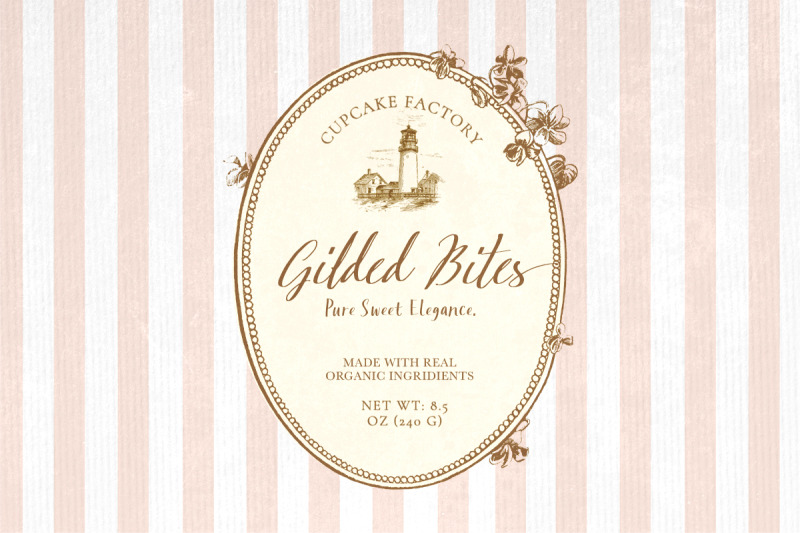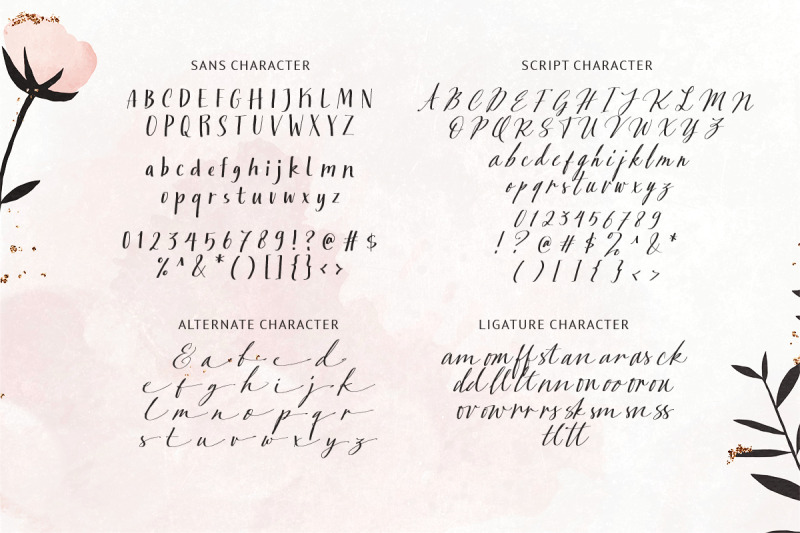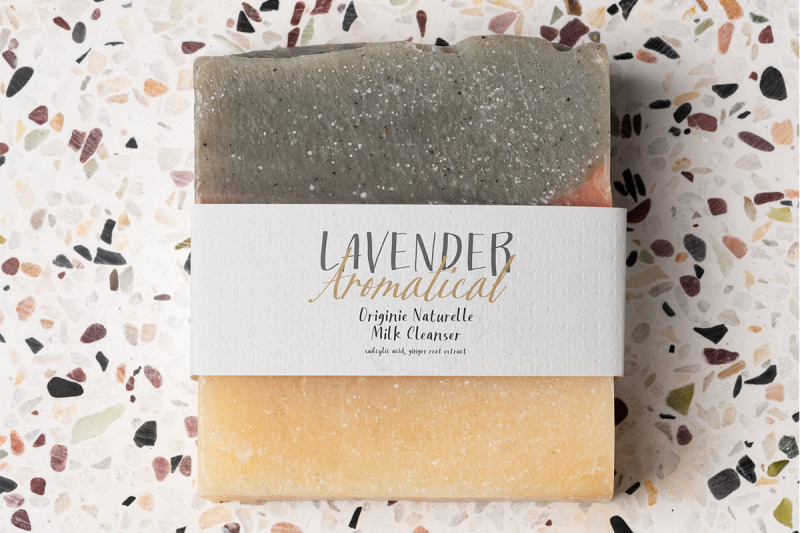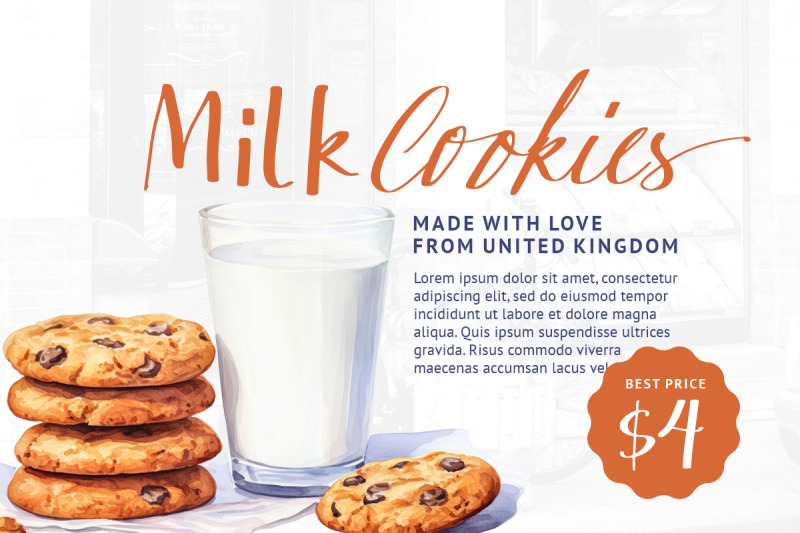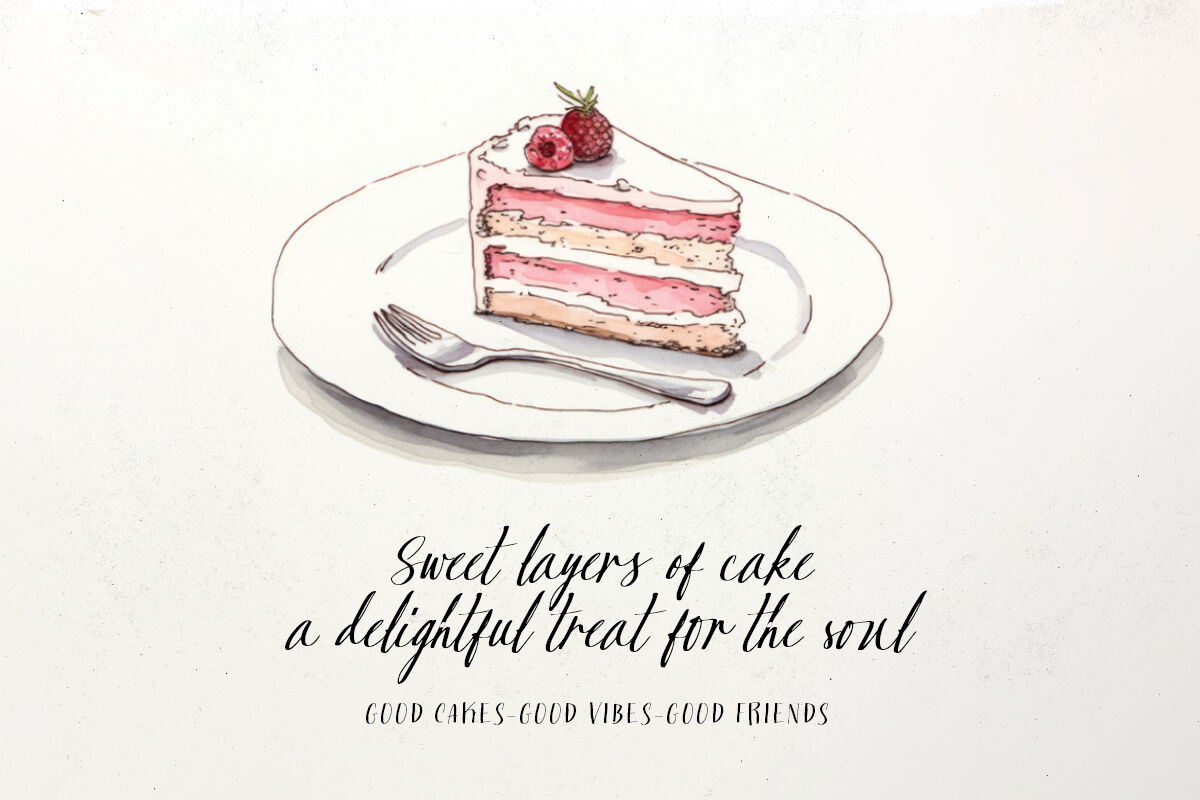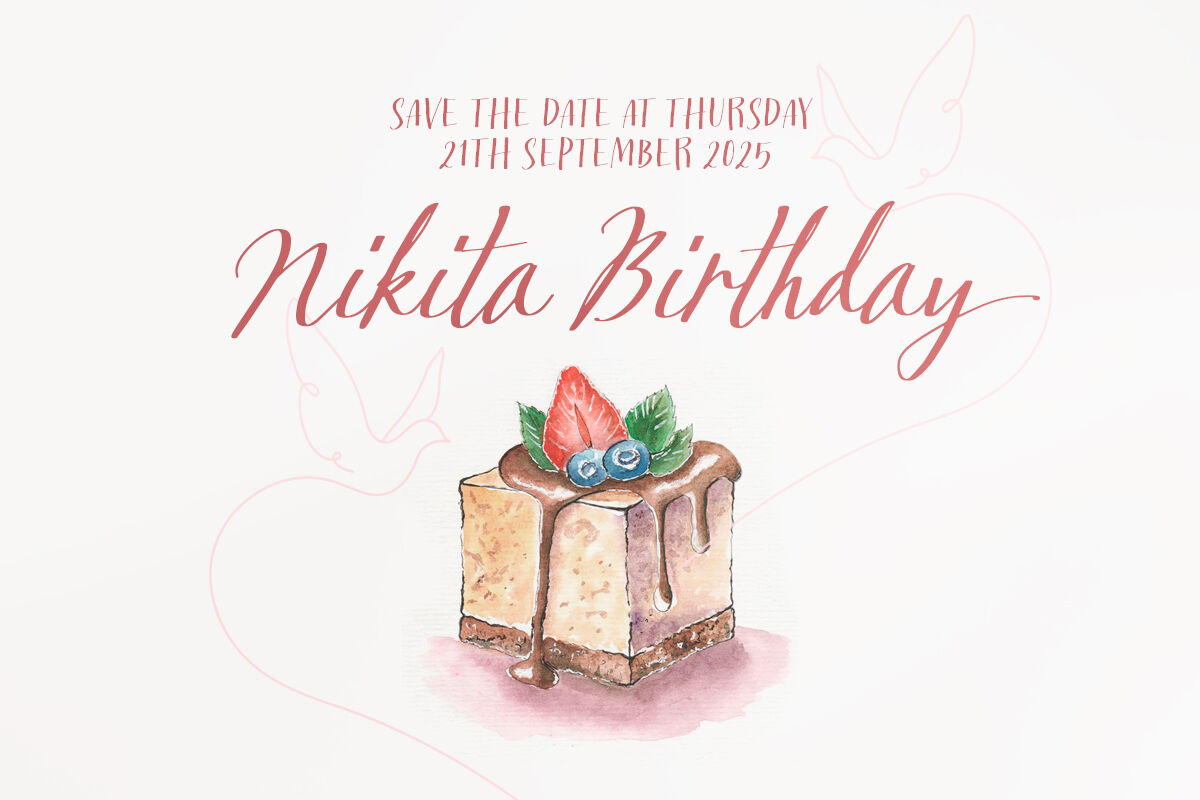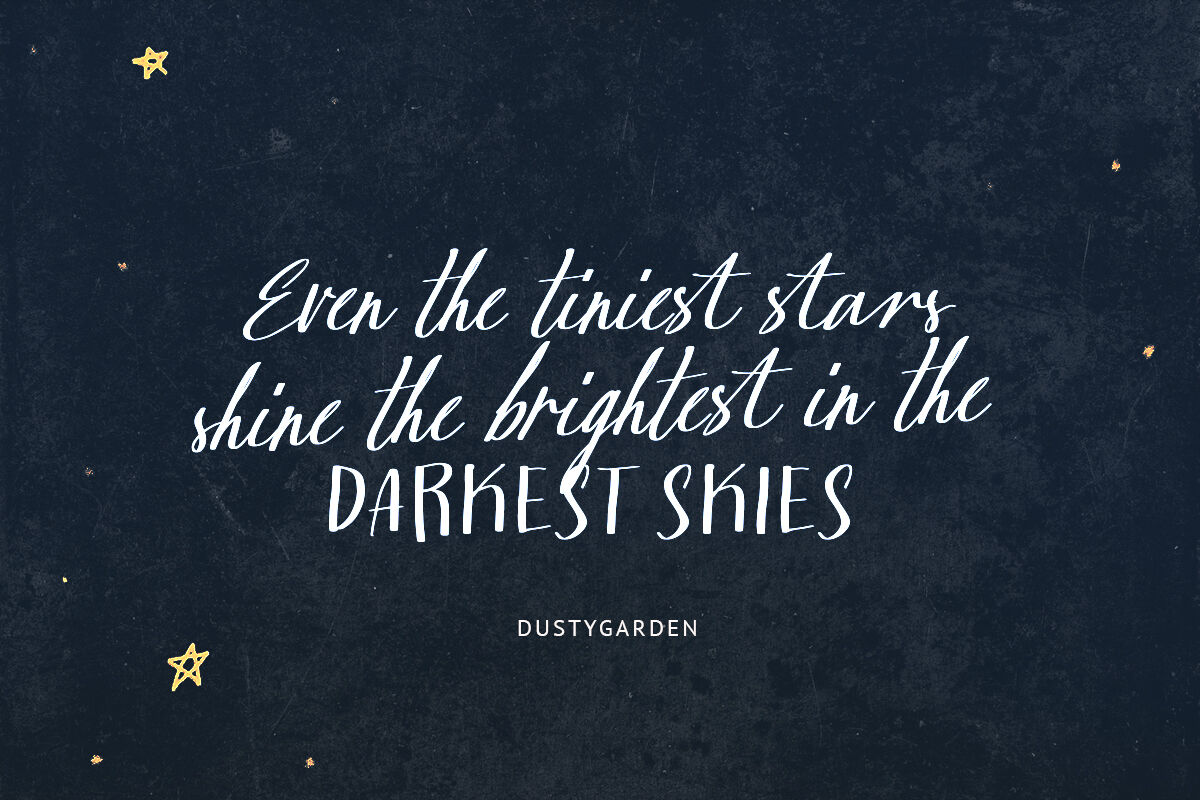
Dusty Garden - Handwriting Font Duo
Dusty Garden is a font family including sans and script that match each other. From beautiful script that have ligatures and end alternate to simple yet natural sans. You can use this font for any purposes, such as wedding invitations, logo, menu list, or any designs that need handmade and handwritten touch. This font also support multi language.
Dusty Garden Sans
Dusty Garden Script